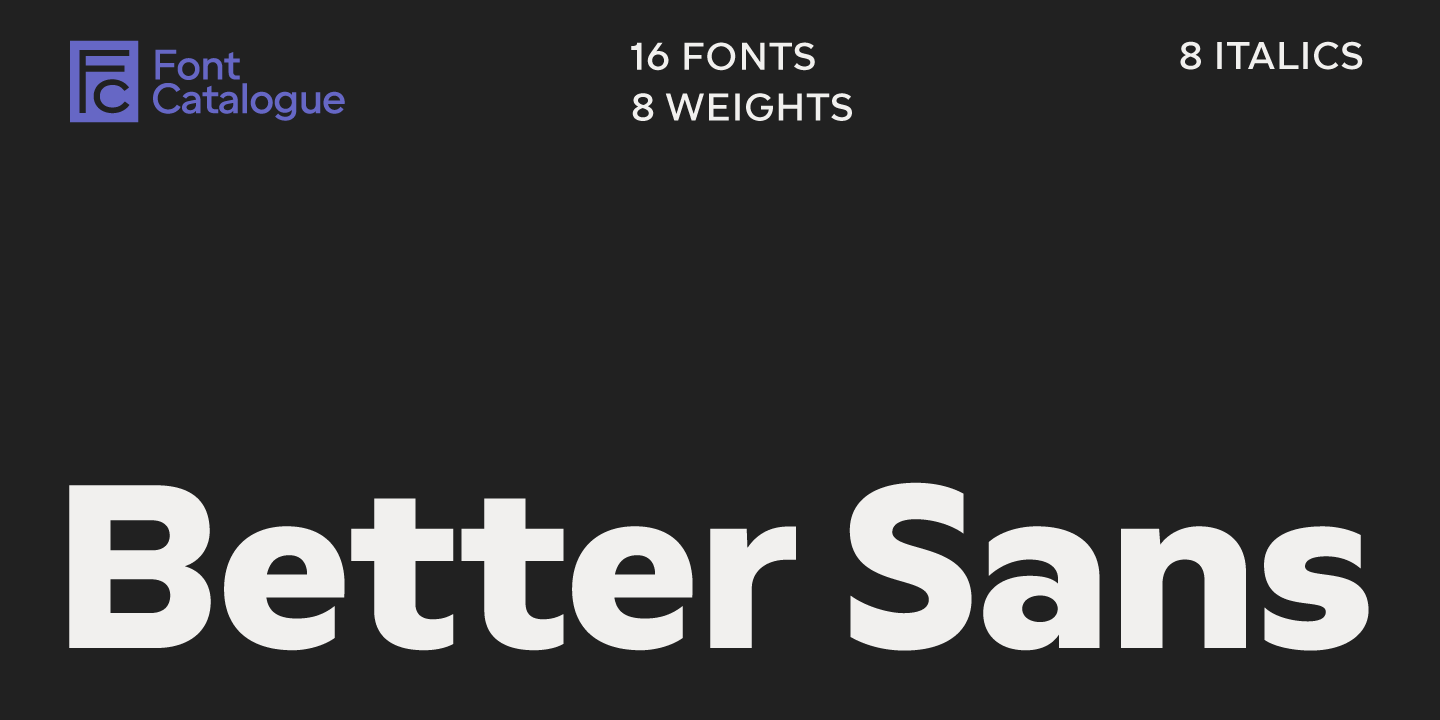
Better Sans is like that reliable friend who always makes your designs shine. Its familiar components make it easy to work with and feel like a companion you've teamed up with repeatedly.
As a sans-serif font, Better Sans combines efficiency with a friendly, approachable feel, making it ideal for vibrant branding and engaging advertisements. It cleverly integrates geometric shapes while maintaining warmth and an appealing aesthetic, enhancing specific characters and adding a playful touch. Round, compact shapes and standout characters give words a distinctive identity.
With a perfect range of weights available, Better Sans offers versatility for branding applications, whether designing headlines for innovative apps and websites or using it in traditional formats. Its horizontal alignment provides stability against any background, making it ideal for web downloads and catchy advertising slogans. 16 fonts for $129 $51.60 | |